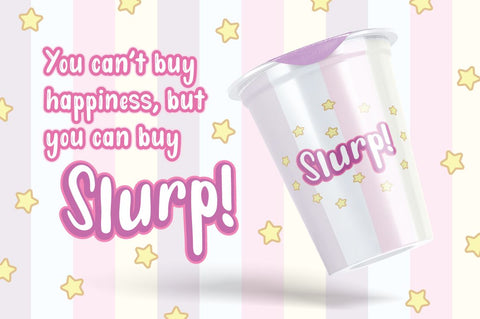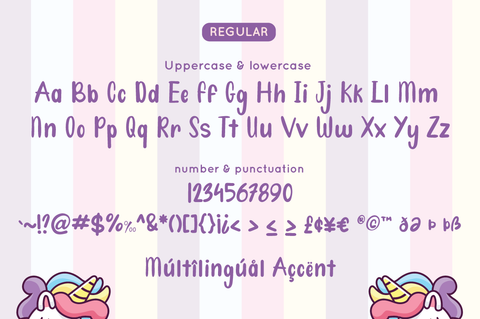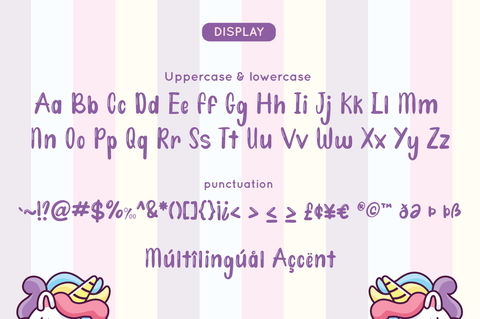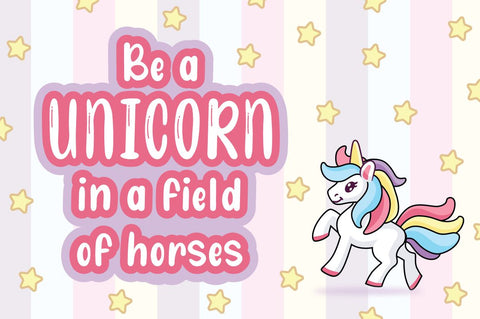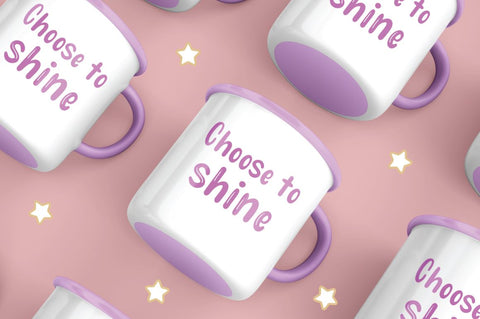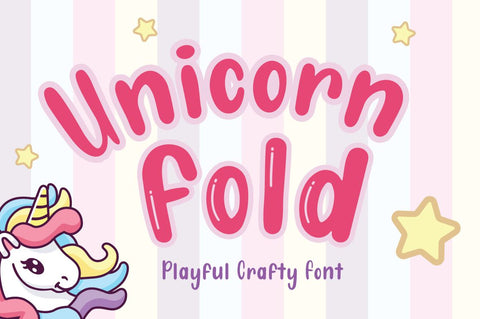
Unicorn Fold - Display Font
Unicorn Fold inspired by fairytail creature "Unicorn". Comes with display font, this layered font make a shiny effect for typography that you creates.